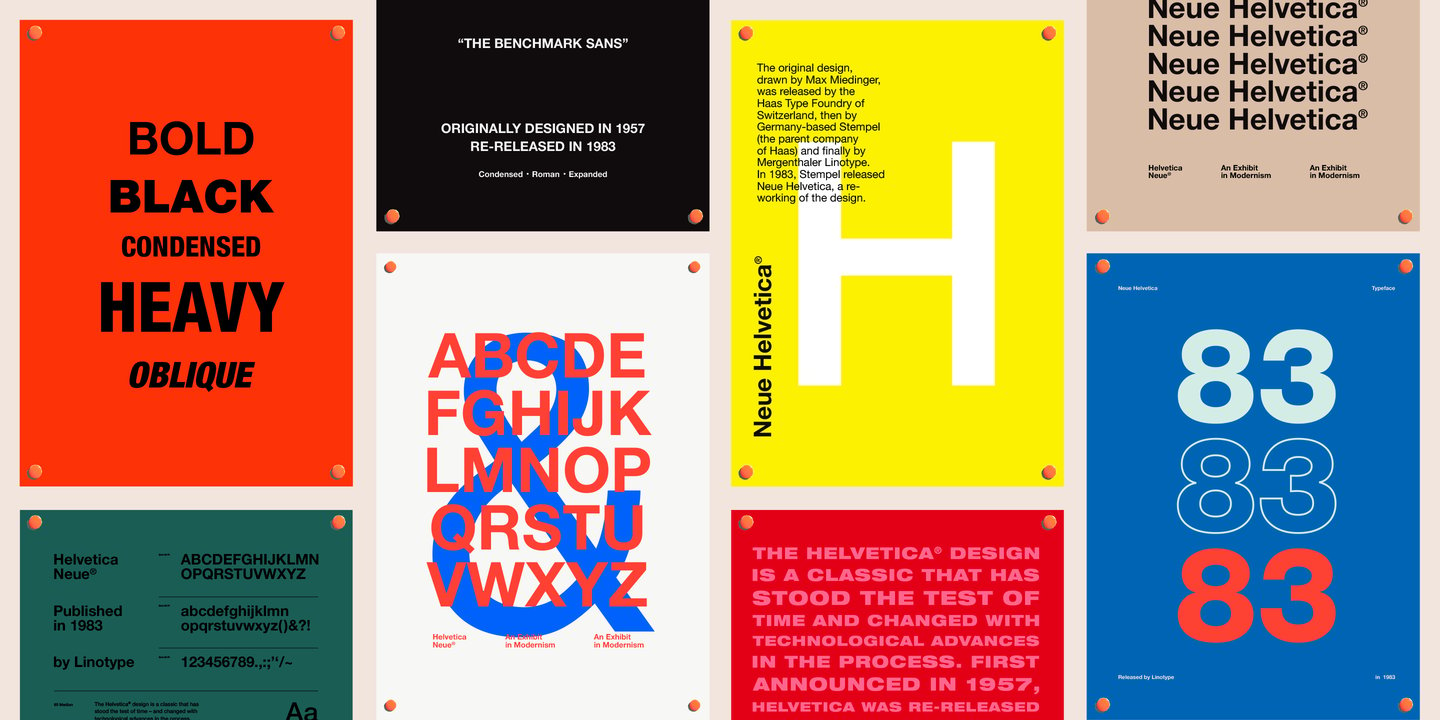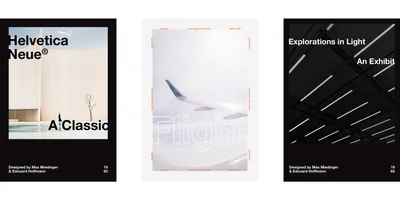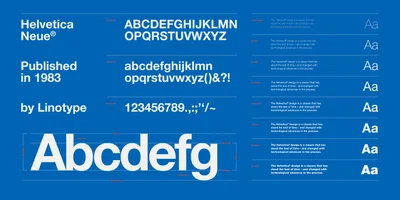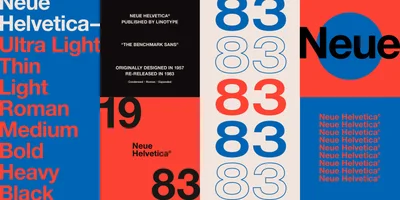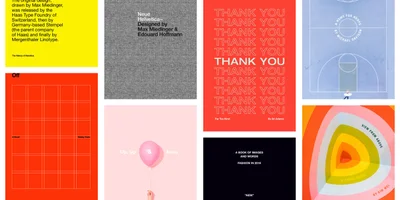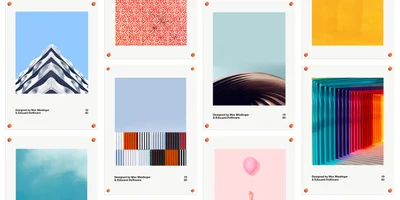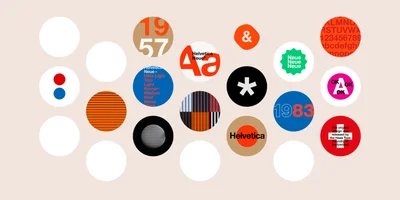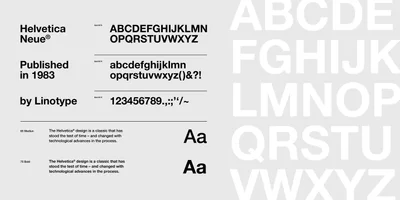
Neue Helvetica vs Syntax
Neue Helvetica and Syntax are both sans-serif typefaces sharing a elegant foundation. Where Neue Helvetica leans neo-grotesque, minimal, Syntax brings humanist, script. Compare which suits your Corporate project.
Neue Helvetica is also known as Helvetica Neue.
Design overlap:17%
| Feature | Neue Helvetica | Syntax |
| Language Support | latin, latin-extended, cyrillic, greek | latin, latin-extended |
| Source | Linotype |
Recommended: Neue Helvetica
- neo-grotesque, minimal design character
- Suited for Signage
- From linotype
Consider: Syntax
- humanist, script design character
- Suited for Books
- From linotype